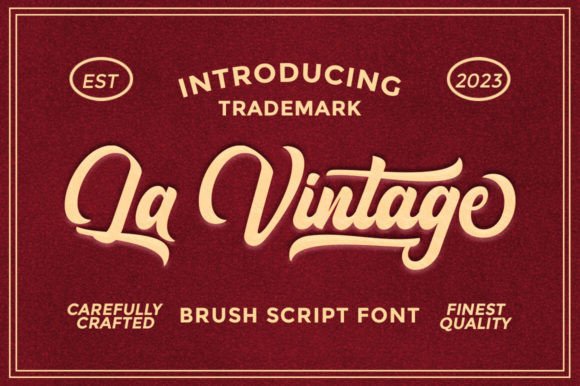
La Vintage Font
La Vintage Script is a brush script from handwritten artistic touch elegant modern as well as a unique blend of ligatures a letter that the authors compose with a little swirly embedding so that a modern font is formed and ready to make a statement by adding elegant and unique flair to your next design project.
La Vintage Script can be used for various purposes such as Magazine Title, Posters, Logos, T-Shirt, Sub Title, Business cards, Trademark, Label, Book Covers, Wedding Invitations, Templates Instagram Story Posts, Greeting Cards, Quotes, etc. These letters are embedded into the font file and easily accessible in programs such as Photoshop and Illustrator. You can access these in more basic design programs but you will need to use your character map or font book.